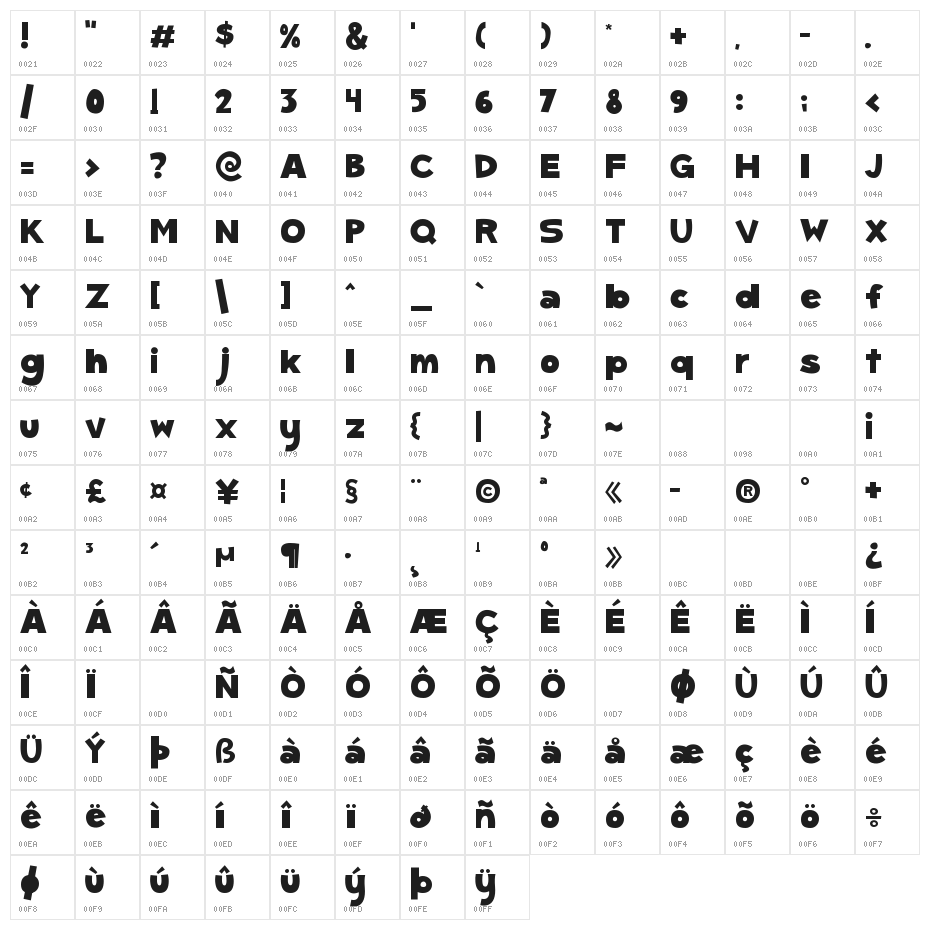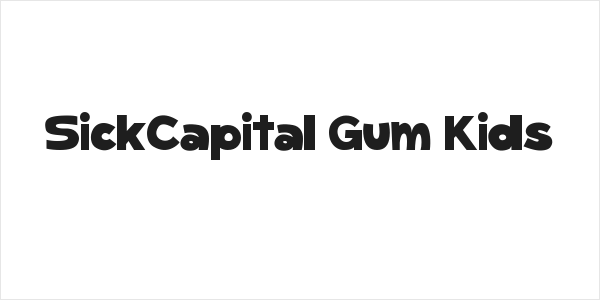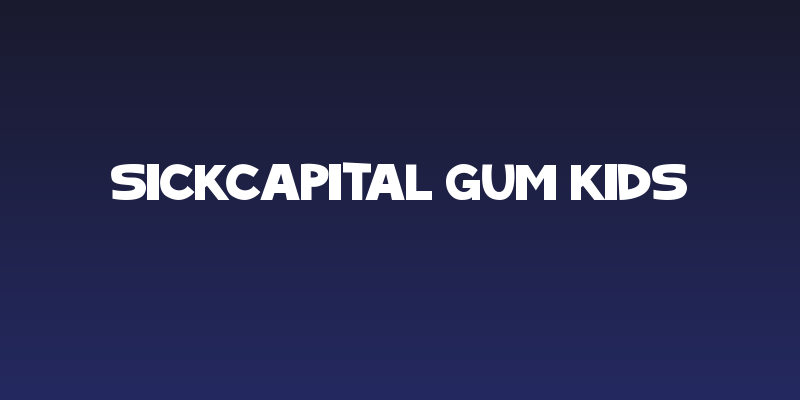
SickCapital Gum Kids Font
SickCapital Gum Kids Description
This playful and bold font features thick, rounded characters that convey a sense of fun and energy. The uppercase and lowercase letters maintain a consistent weight, creating a cohesive look. The numbers and special characters are equally bold, with some characters like the ampersand and dollar sign adding a whimsical touch. The overall appearance is chunky and approachable, making it ideal for projects that require a friendly and informal tone.
| Proposed Projects | Ideal for children's books, playful branding, toy packaging, and event posters. |